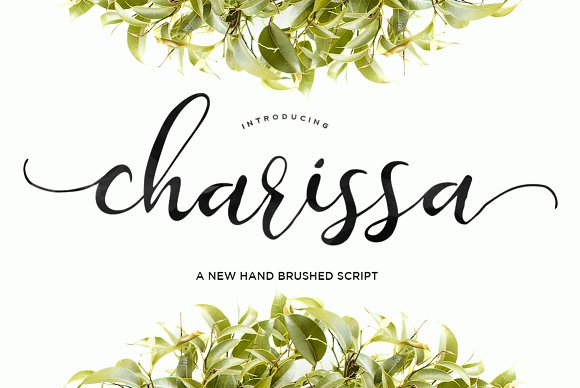
Introducing Charissa Font: A Beautiful Handwritten Typeface
Charissa is a stunning handwritten font created by Area Type, a renowned font foundry known for producing high-quality typefaces. This beautiful font is perfect for designers and crafters looking to add a personal touch to their projects. In this article, we’ll explore the features, benefits, and uses of Charissa font, and why it’s a must-have for anyone looking to elevate their design game.
The Story Behind Charissa Font
Charissa font is a carefully crafted handwritten typeface that exudes warmth and personality. The font was designed to mimic the natural flow of handwriting, with each letter carefully drawn to create a sense of movement and fluidity. The result is a font that feels both elegant and approachable, making it perfect for a wide range of design applications.
Key Features of Charissa Font
So, what makes Charissa font so special? Here are some of its key features:
- Handwritten style: Charissa font is a genuine handwritten typeface, with each letter drawn with care and attention to detail.
- Unique character set: The font includes a wide range of characters, including uppercase and lowercase letters, numbers, and punctuation marks.
- High-quality design: Charissa font is designed to be clear and legible, even at small sizes.
- Multilingual support: The font supports multiple languages, making it a great choice for designers working on international projects.
Benefits of Using Charissa Font
So, why should you choose Charissa font for your next project? Here are some benefits of using this beautiful typeface:
- Adds a personal touch: Charissa font’s handwritten style adds a personal touch to any design, making it perfect for projects that require a human touch.
- Versatile: The font is versatile and can be used for a wide range of design applications, from branding and packaging to digital media and web design.
- Easy to read: Despite its handwritten style, Charissa font is surprisingly easy to read, making it perfect for body text and other long-form content.
- Supports multiple languages: The font’s multilingual support makes it a great choice for designers working on international projects.
Uses of Charissa Font
So, what can you use Charissa font for? The possibilities are endless! Here are some ideas to get you started:
- Branding and packaging: Use Charissa font to create beautiful brand identities and packaging designs that stand out from the crowd.
- Digital media: The font is perfect for digital media, including social media graphics, email newsletters, and blog posts.
- Web design: Charissa font can be used to create stunning website designs that are both elegant and approachable.
- Crafting and DIY projects: The font is also perfect for crafters and DIY enthusiasts looking to add a personal touch to their projects.
Tips for Using Charissa Font
Here are some tips for getting the most out of Charissa font:
- Use it sparingly: Charissa font’s handwritten style is best used sparingly, as it can be overwhelming in large doses.
- Pair it with other fonts: The font pairs well with other fonts, including sans-serif and serif typefaces.
- Experiment with colors: Charissa font looks great in a range of colors, from bold and bright to soft and pastel.
Charissa font is a beautiful handwritten typeface that is perfect for designers and crafters looking to add a personal touch to their projects. With its unique character set, high-quality design, and multilingual support, this font is a must-have for anyone looking to elevate their design game. Whether you’re working on a branding project, digital media, or a crafting project, Charissa font is sure to impress.